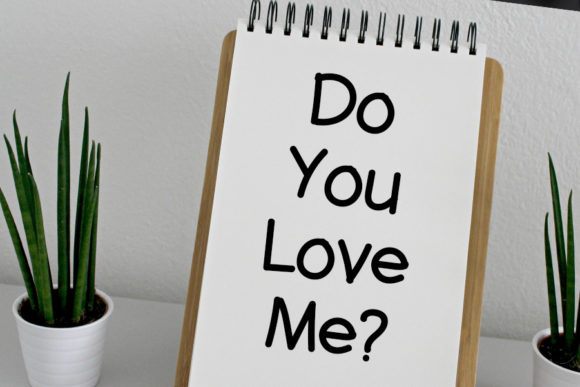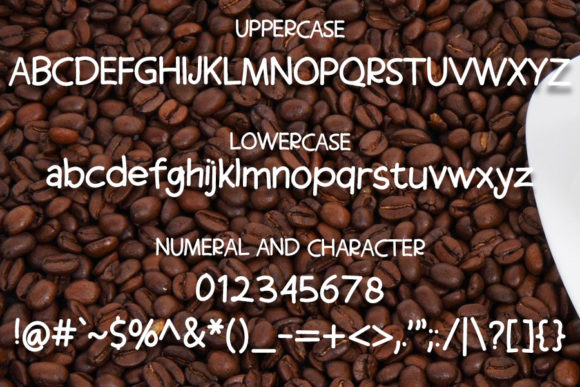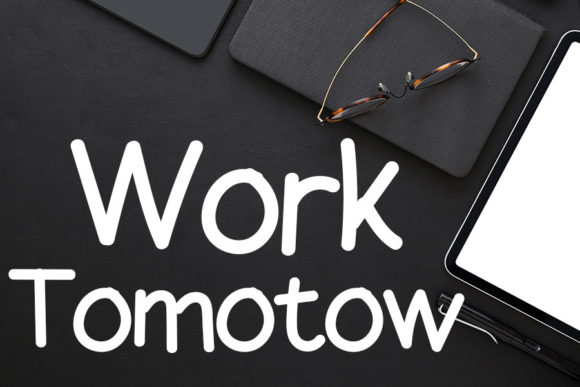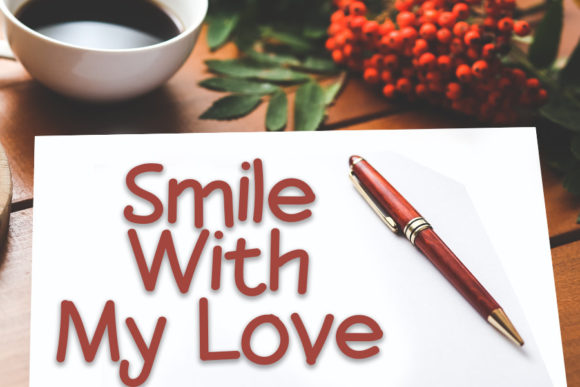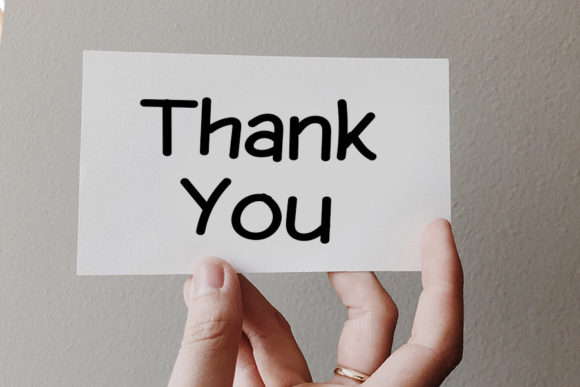
Coffee Break Font: Elevate Your Designs with a Stylish Touch
Are you tired of using the same old fonts in your designs? Look no further than the Coffee Break Font, a gorgeous display font that can add a stylish touch to any project. This font is crafted to read strong, confident, and dynamic, making it perfect for designers and crafters looking to elevate their work.
The Perfect Blend of Style and Nostalgia
Coffee Break Font is a unique and eye-catching font that can add tons of nostalgic character to your designs. Its bold and confident style is reminiscent of classic coffee shop signage, making it perfect for projects that require a touch of vintage flair. Whether you’re working on a logo, poster, or packaging design, this font is sure to make your project stand out.
Key Features of Coffee Break Font
- Strong and Confident Style: Coffee Break Font is designed to make a statement. Its bold and dynamic style is perfect for headlines, titles, and other design elements that need to grab attention.
- Nostalgic Character: This font has a unique nostalgic charm that is sure to evoke memories of classic coffee shops and vintage advertisements.
- Versatile: Coffee Break Font can be used in a variety of design projects, from logos and posters to packaging and branding materials.
- Easily Readable: Despite its bold style, Coffee Break Font is easy to read, making it perfect for use in a variety of design applications.
How to Use Coffee Break Font in Your Designs
Coffee Break Font is easy to use and can be incorporated into your designs in a variety of ways. Here are a few ideas to get you started:
- Logos and Branding: Use Coffee Break Font as a bold and eye-catching logo or branding element. Its nostalgic style is perfect for coffee shops, cafes, and other businesses that want to evoke a sense of classic charm.
- Posters and Flyers: Add a touch of vintage flair to your posters and flyers with Coffee Break Font. Its bold style is sure to grab attention and make your design stand out.
- Packaging Design: Use Coffee Break Font on packaging materials, such as labels and tags, to add a touch of nostalgic charm to your products.
Tips for Getting the Most Out of Coffee Break Font
Here are a few tips for getting the most out of Coffee Break Font:
- Use it Sparingly: Coffee Break Font is a bold and eye-catching font, so use it sparingly to avoid overwhelming your design.
- Pair it with Other Fonts: Coffee Break Font pairs well with a variety of other fonts, so don’t be afraid to experiment with different combinations.
- Experiment with Colors: Coffee Break Font looks great in a variety of colors, so experiment with different color schemes to find the one that works best for your design.
Coffee Break Font is a gorgeous display font that can add a stylish touch to any project. Its strong, confident, and dynamic style makes it perfect for designers and crafters looking to elevate their work. With its nostalgic character and versatile design, Coffee Break Font is sure to become a go-to font in your design arsenal.
- What type of font is Coffee Break Font?: Coffee Break Font is a display font, perfect for use in headlines, titles, and other design elements that need to grab attention.
- Is Coffee Break Font easy to read?: Yes, despite its bold style, Coffee Break Font is easy to read, making it perfect for use in a variety of design applications.